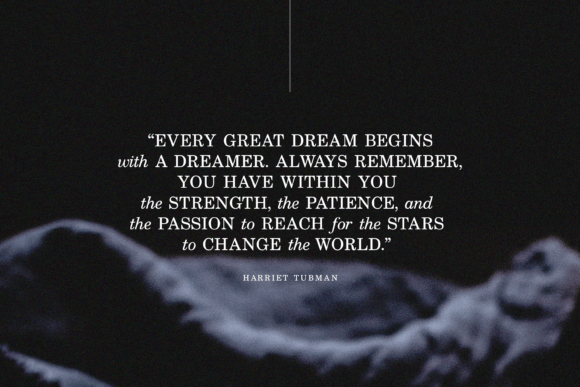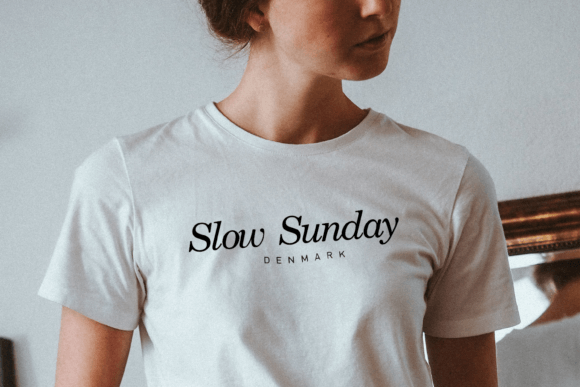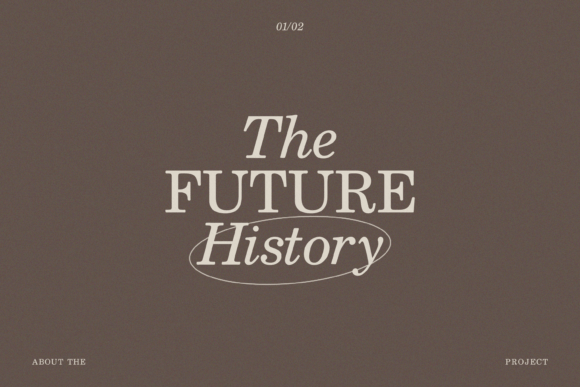
Eco-friendly Market Font
About the Eco-friendly Market Font
The wait is over! The incredible Eco-friendly Market Font is now available for your design toolkit. Eco-Friendly Market is a stylish, modern serif font inspired by classic vintage lettering. It has a clean and elegant look, perfect for giving designs a touch of timeless charm while staying eco-conscious.
This font excels in headlines, logos, and short text segments within branding materials and packaging design. Its elegant serifs lend a touch of sophistication, making it suitable for products emphasizing quality and natural ingredients. However, its refined style isn’t ideal for body text or lengthy paragraphs, where readability might suffer. Avoid using it in UI contexts requiring high levels of legibility at smaller sizes.
Eco-Friendly Market possesses a sophisticated yet approachable personality, conveying both a sense of timeless quality and modern sensibility. It works well for brands focused on organic products, sustainable practices, or artisan goods.
Pairing it with a clean sans-serif like Open Sans for body copy creates a balanced and harmonious effect. Alternatively, a playful script font could add a touch of whimsy to enhance its elegant base, while a geometric sans-serif would offer a modern contrast for a more contemporary feel.
Eco-friendly Market Font Example